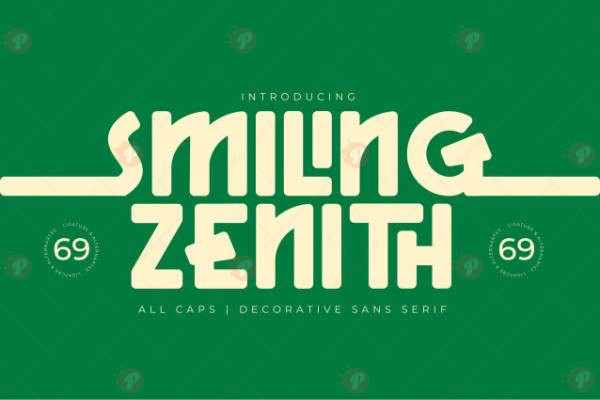
The Smiling Zenith Font Free is a modern and stylish display typeface designed to make your projects stand out with elegance and impact. Its unique curves, bold strokes, and contemporary letterforms make it perfect for logos, posters, advertising, product packaging, and creative digital artwork.
With its eye-catching style and versatile design, the Smiling Zenith Font Free is ideal for branding, social media graphics, event flyers, and modern layouts. Whether you want a luxury vibe or a trendy modern look, this font brings sophistication and creativity to every project.
Typeface: Display / Modern Sans Serif
Style: Stylish / Bold / Elegant / Creative
Perfect for: Logos, Posters, Flyers, Packaging, Social Media, Branding, Headlines
Make your designs shine with the Smiling Zenith Font Free – a creative typeface built for modern design trends. 🌟